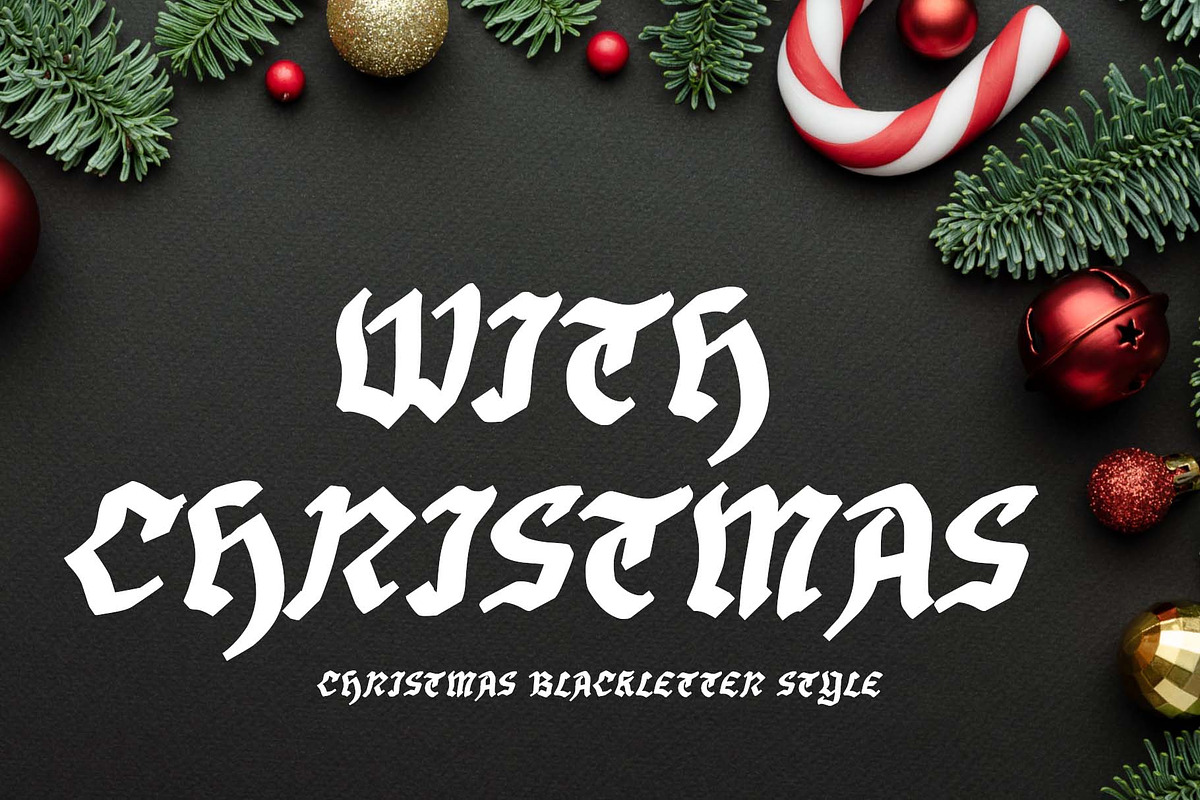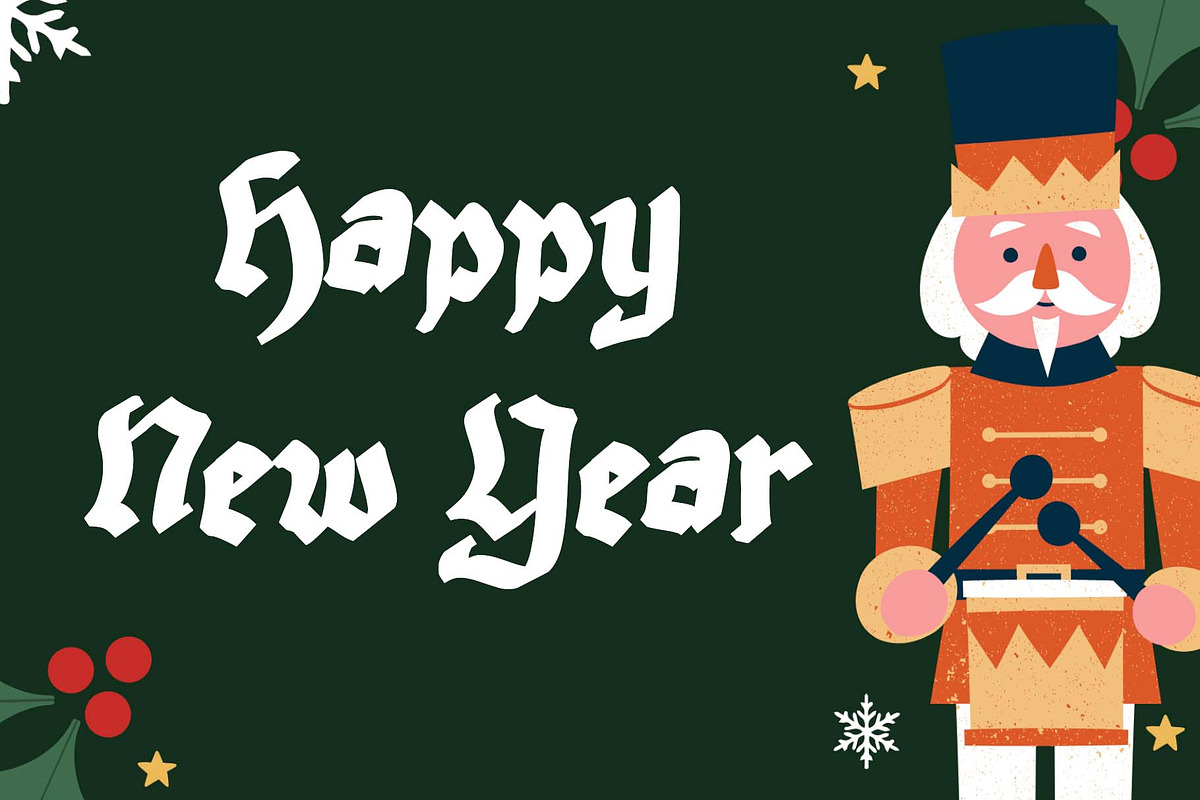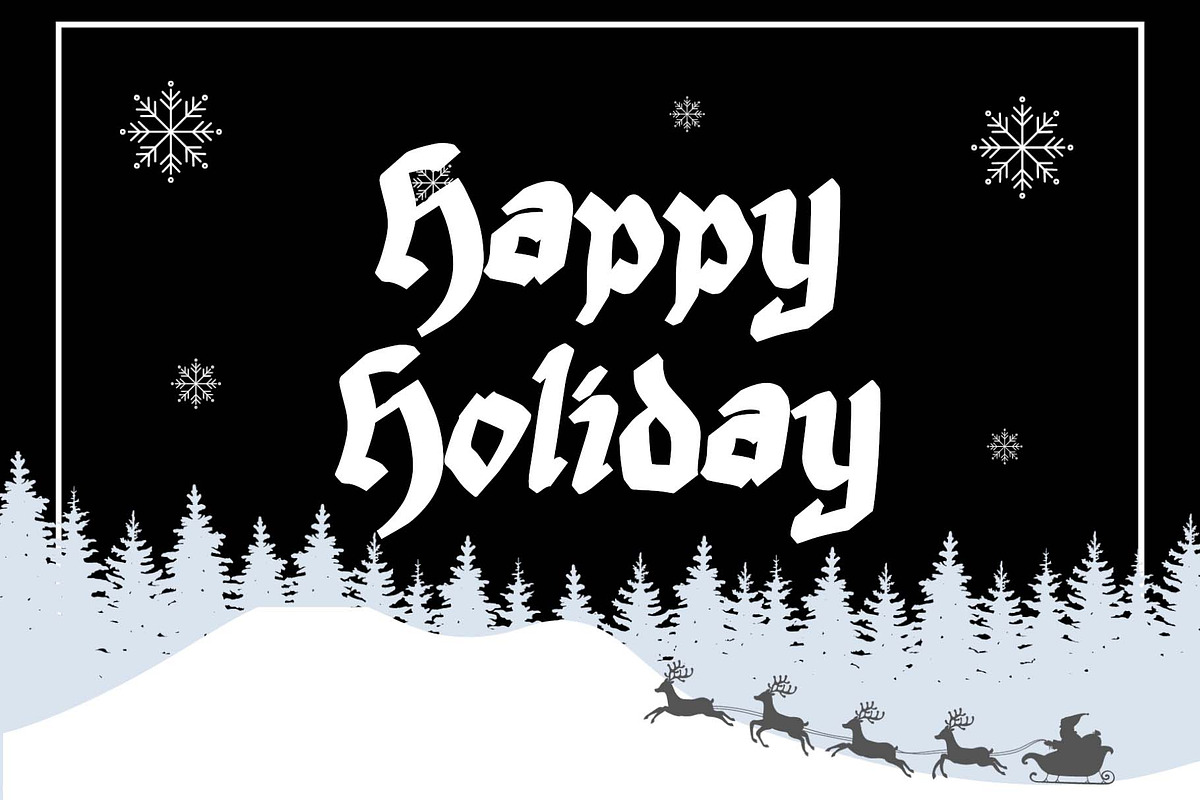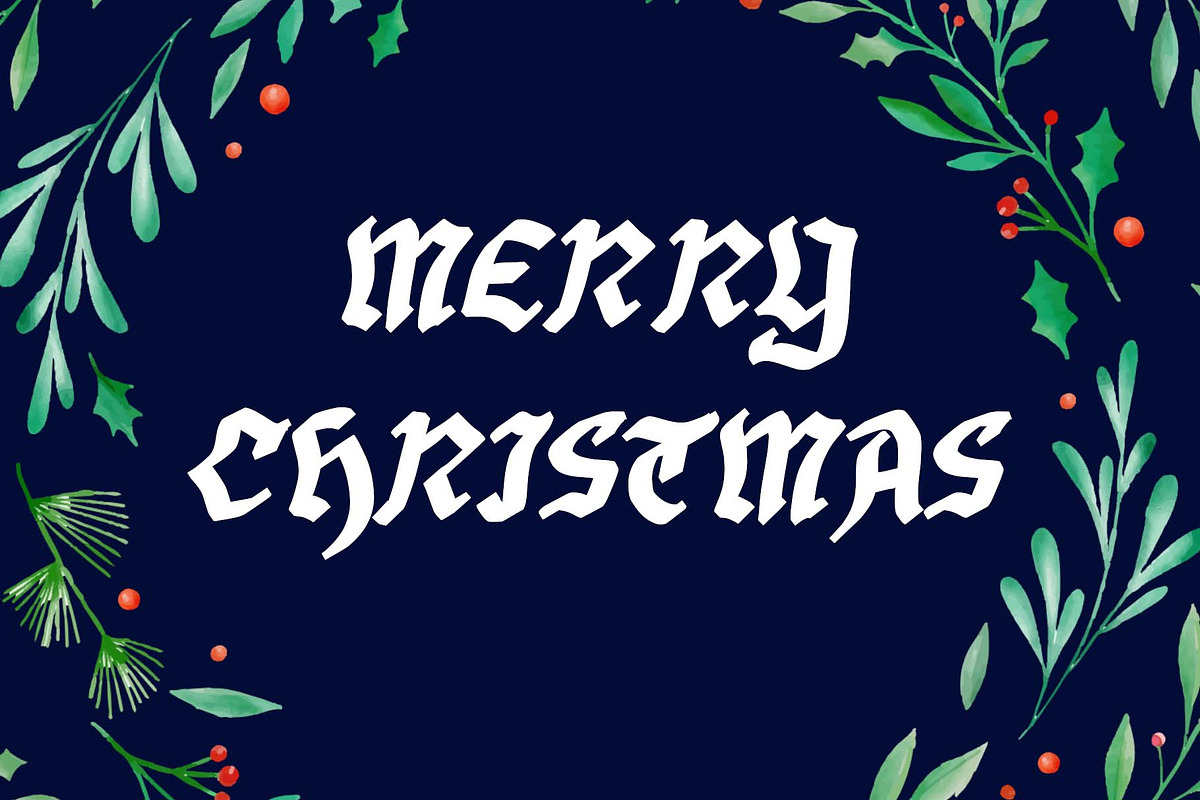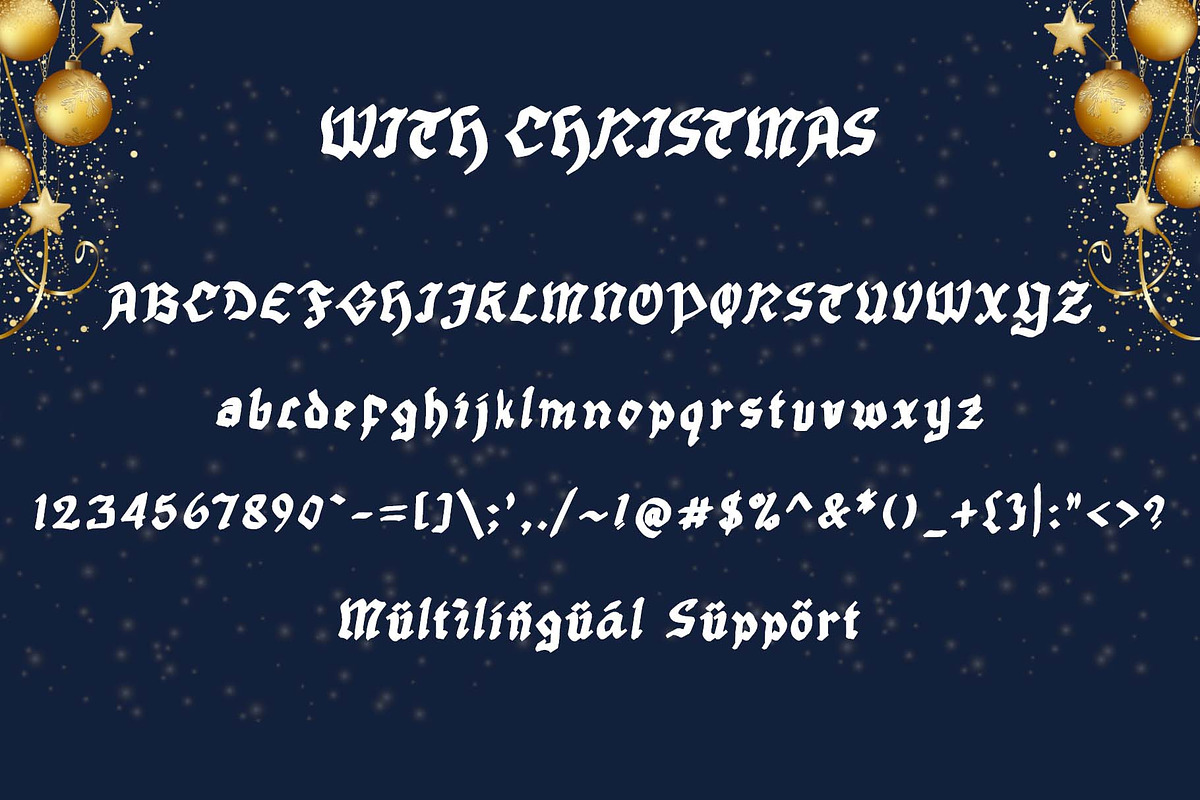
With Christmas
“With Christmas” is an elegant and professional blackletter font. This font is equipped with uppercase, lowercase, numerals, punctuation, and multilingual support. Very suitable for Christmas, Halloween, business branding, promotions, logos, banners, posters, and others.